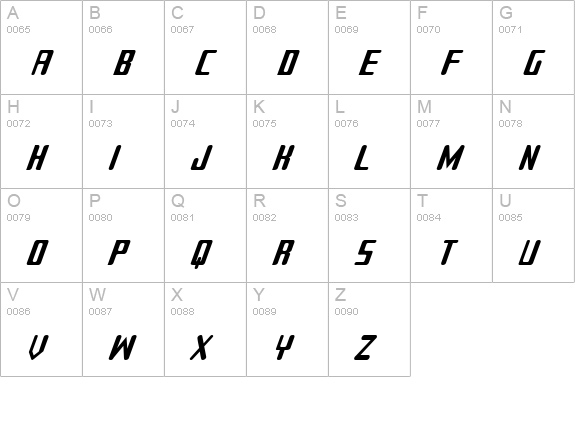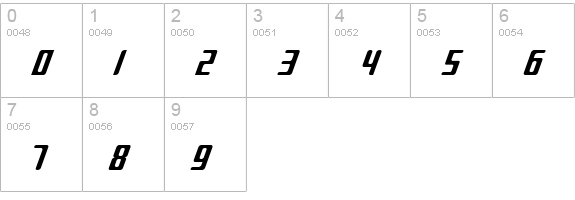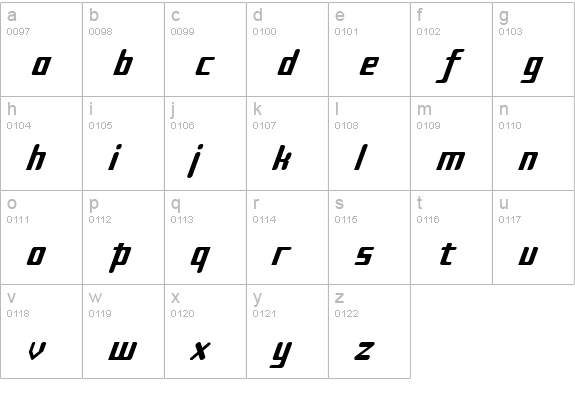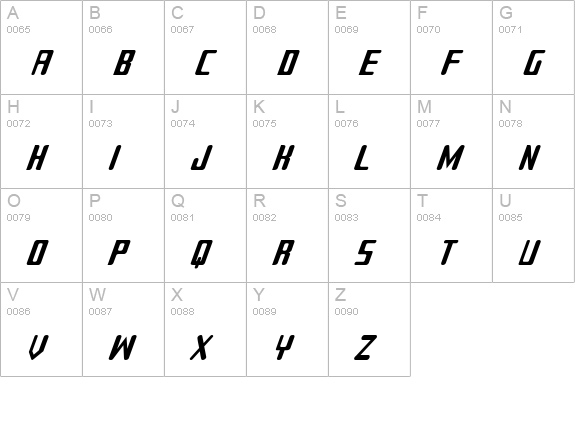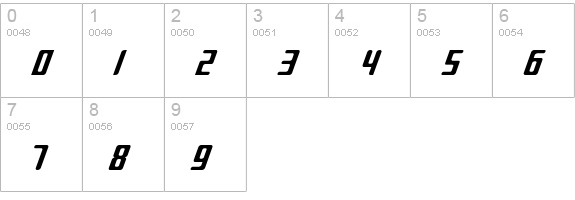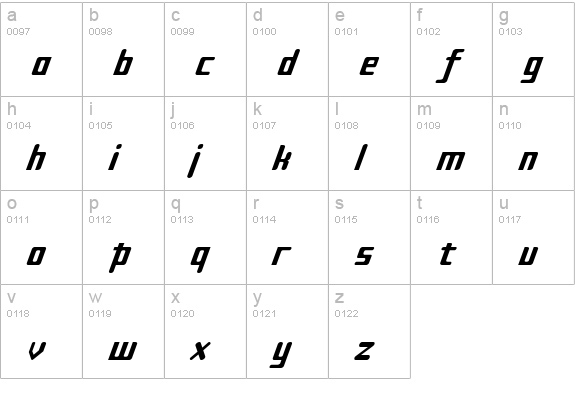
Sujeta Italic Font Details
Sujeta Italic is a distinctive, italic variant in the Sujeta typeface family \xE2\x80\x94 well suited to design and typography projects.
Sujeta Italic font is a modern and elegant typeface that exudes sophistication and style. With its sleek and sleek design, this font is perfect for adding a touch of class to your projects. The italic style of Sujeta adds a sense of movement and flair, making it ideal for use in headings, logos, and other design elements that need to stand out. Best of all, Sujeta Italic font is available for free download at FontsMarket.com. This means you can easily access this stunning font and incorporate it into your designs without any cost. Don't miss out on the opportunity to enhance your projects with the timeless beauty of Sujeta Italic font - download it for free today!